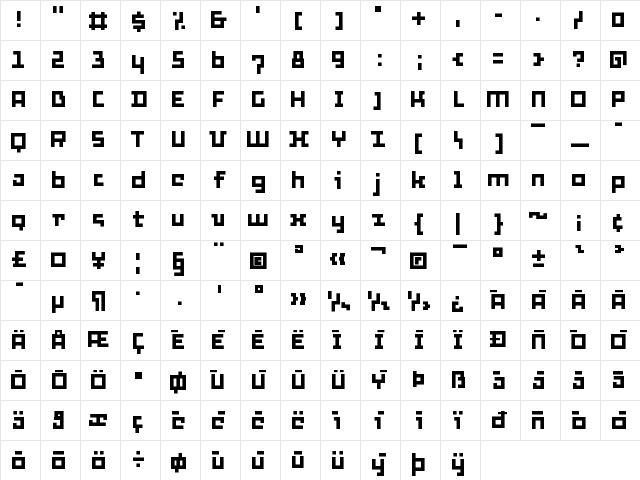
Thirtysix Regular Free Font
Thirtysix Regular
Design Context for Thirtysix
Thirtysix is a composed and adaptable typeface that performs quietly and consistently across a wide range of design contexts.